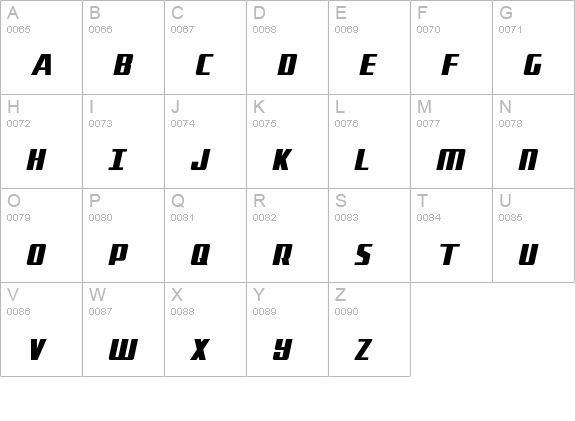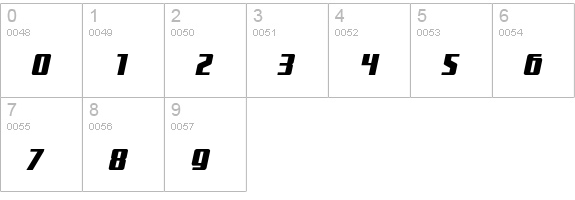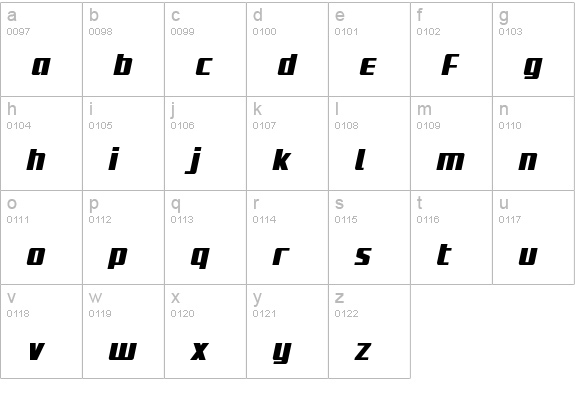
Subadai Baan Font Details
Subadai Baan is a donationware font in the General > Bold category, designed by Iconian. It has been downloaded 245 times and is available for Windows, Mac and Linux.
Subadai Baan font is a modern and stylish typeface that exudes elegance and sophistication. With its sleek lines and unique design, this font is perfect for a wide range of design projects, from branding to marketing materials. The clean and crisp letterforms make Subadai Baan font highly readable, ensuring that your message will always be conveyed effectively.